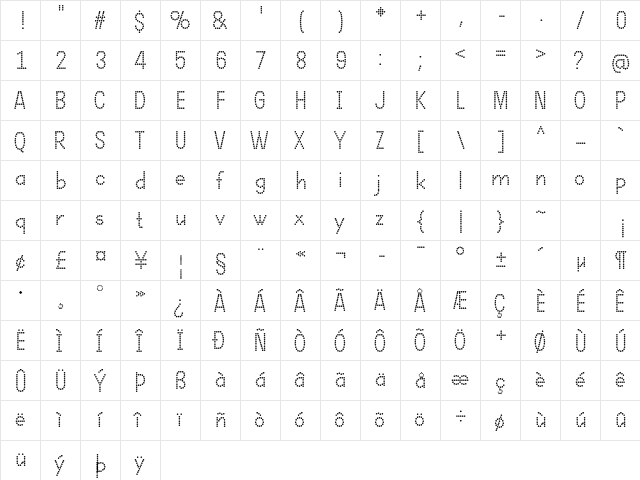
DOTCIRFUL Regular
| Designer | Situjuh Nazara |
Design Context for DOTCIRFUL Typeface
DOTCIRFUL is rooted in pixel-grid construction, making it a natural fit for game UI, retro computing aesthetics, and digital nostalgia projects.
Well-suited to indie game interfaces, retro computing aesthetics, and pixel art-adjacent design work.
Pro Tip: Use DOTCIRFUL at sizes that align with its pixel grid for the sharpest rendering — scaling to non-integer multiples can introduce unwanted blur.